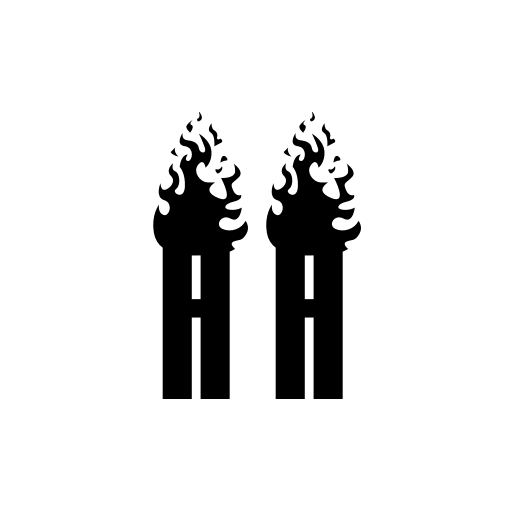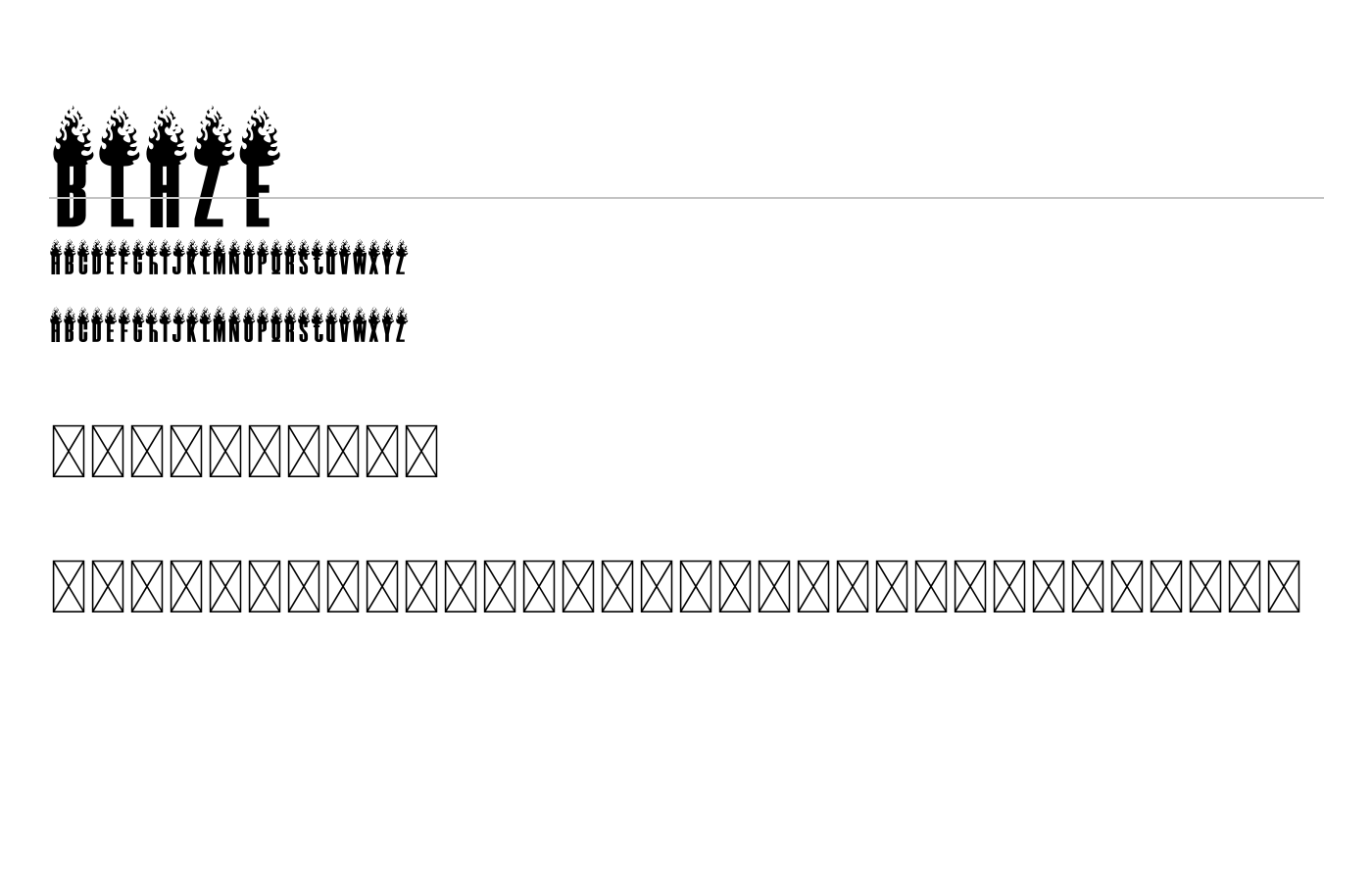
Blaze Font is a bold, condensed sans serif with a striking display style featuring flame motifs integrated into the letterforms, giving it an energetic and edgy personality. Its tall, narrow structure combined with the unique fiery decoration makes it perfect for eye-catching headlines, logos, and posters where a sense of intensity and excitement is desired. This font works best in contexts that call for a dramatic, vibrant look such as entertainment branding, event promotions, or extreme sports themes.
Blaze Font